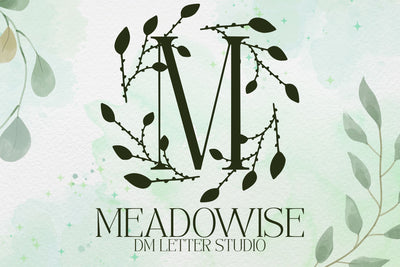
Meadowise Monogram
Meadowise – Elegant Handwritten Script with Natural Flow
Meadowise is a beautifully flowing handwritten script font inspired by tranquil meadows and gentle breezes. Featuring graceful ligatures and a soft organic style, Meadowise adds a touch of charm and authenticity to any design. Whether you’re creating wedding invitations, branding, or social media graphics, this font brings a peaceful, handwritten warmth to your work.
Handwritten Style: A smooth and flowing script with varied stroke widths and natural curves.
Elegant Ligatures: Includes a selection of ligatures to enhance visual flow and letter connections.
Versatile Aesthetic: Perfect for romantic, nature-inspired, or boho-themed designs.